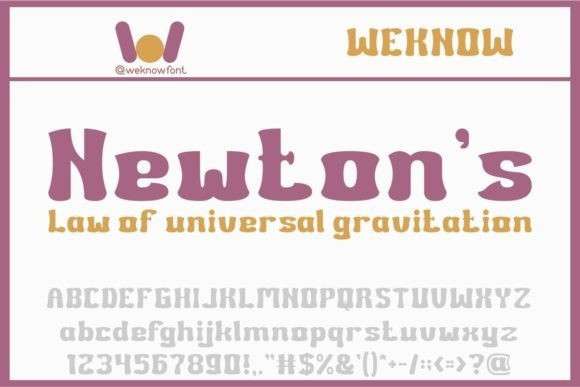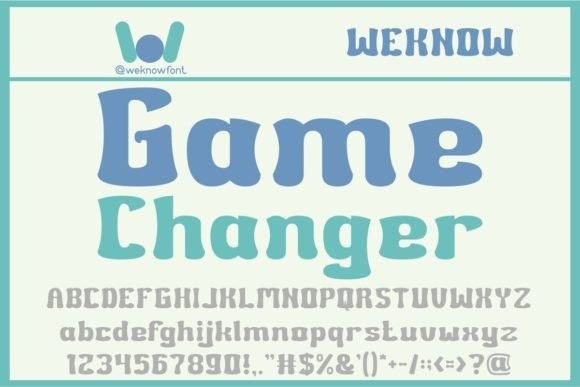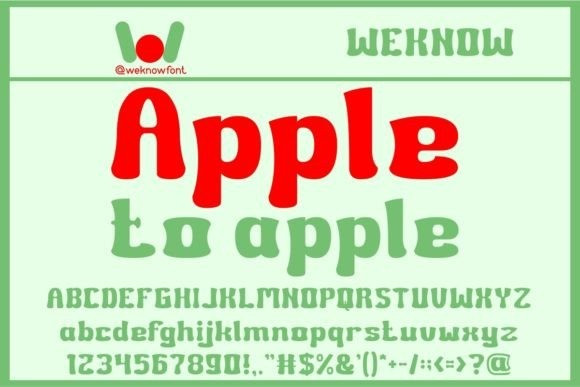
Apple To Apple Font
Apple to Apple Font is a cute and fun display font. Its natural and unique style makes it incredibly fitting to a large pool of designs. Have fun with this beautiful font and explore its endless variations.